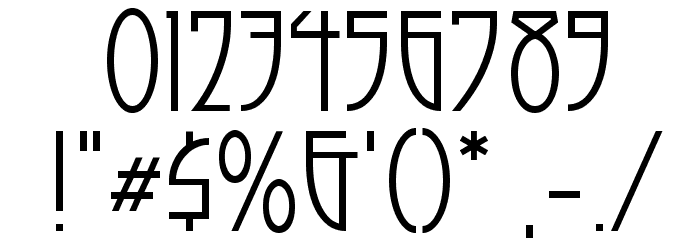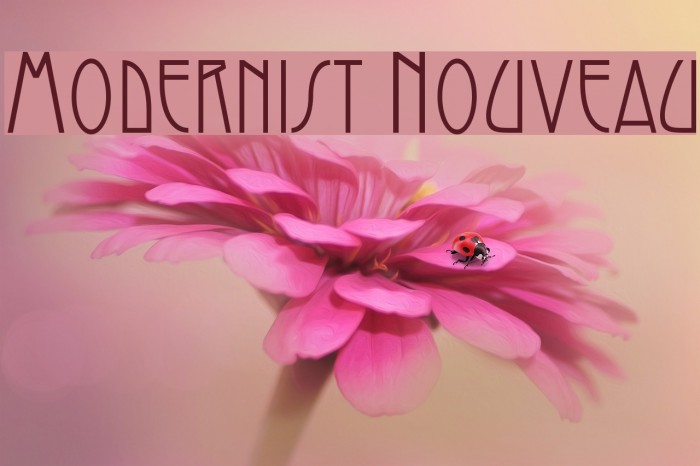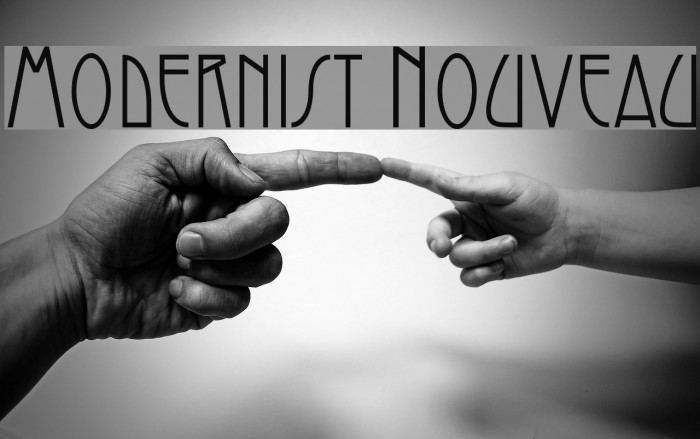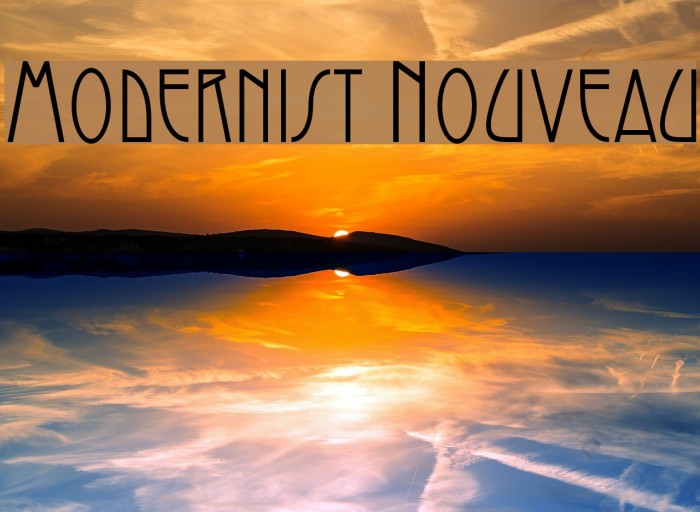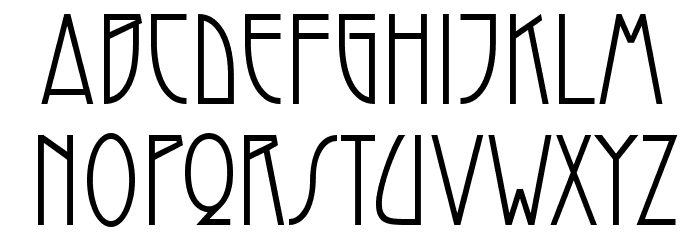
Modernist Nouveau Font
This font features a unique blend of modern and art nouveau styles, characterized by its geometric shapes and elongated forms. The uppercase letters are tall and narrow, with distinct angular cuts and curves that give it a sophisticated yet artistic appearance. The lowercase letters maintain a consistent style, offering a seamless transition between characters. The numerals are similarly styled, with a sleek and contemporary look. Special characters are designed with the same attention to detail, ensuring a cohesive visual experience. This font's clean lines and artistic flair make it suitable for a variety of creative applications.
A modern, art nouveau-inspired font with geometric shapes and elongated forms.
• Proposed Projects: Ideal for branding, posters, album covers, and any project requiring a modern artistic touch.